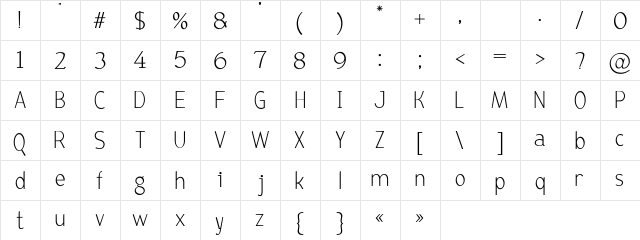
Bird cherry Regular Font Preview
Bird cherry Regular
Design Context for Bird cherry Typeface
Bird cherry is a composed and adaptable typeface that performs quietly and consistently across a wide range of design contexts.